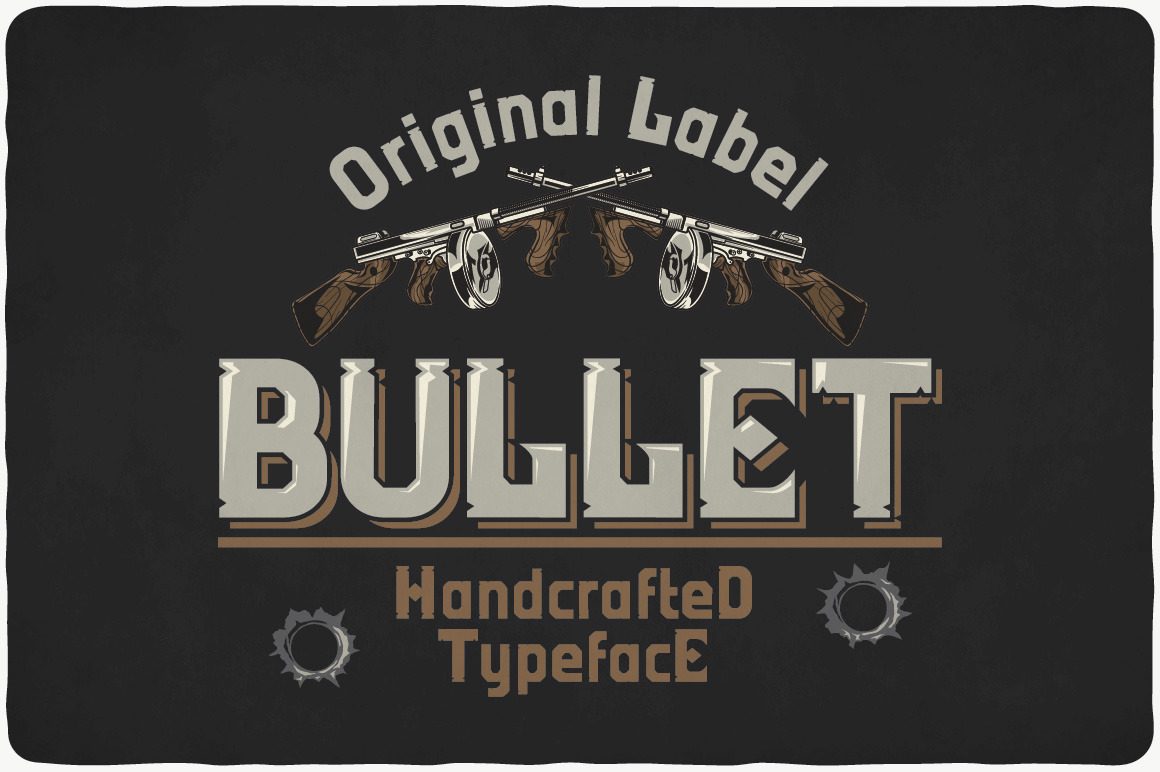
Bullet Typeface
Introducing a vintage look label typeface named "Bullet". This typeface contains layers - light and shadow, for sample look at 4th preview. Plus aged (distressed) version. Typeface is good viewed on any yours design.